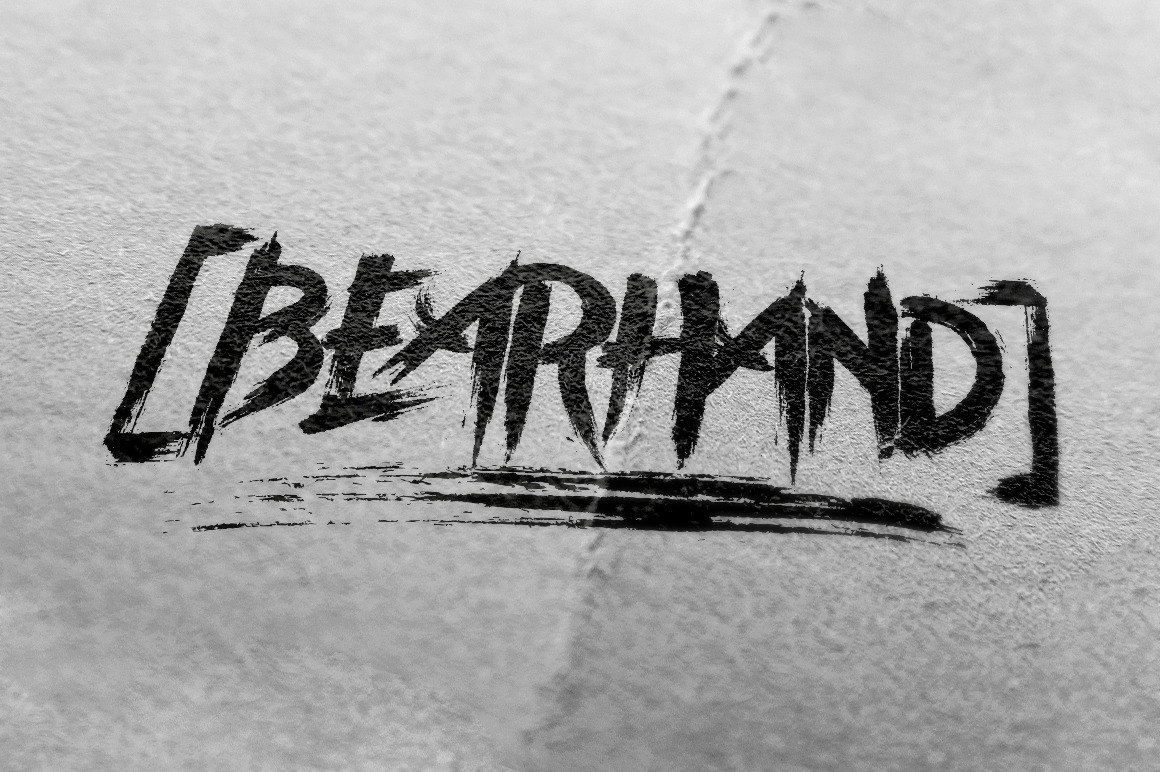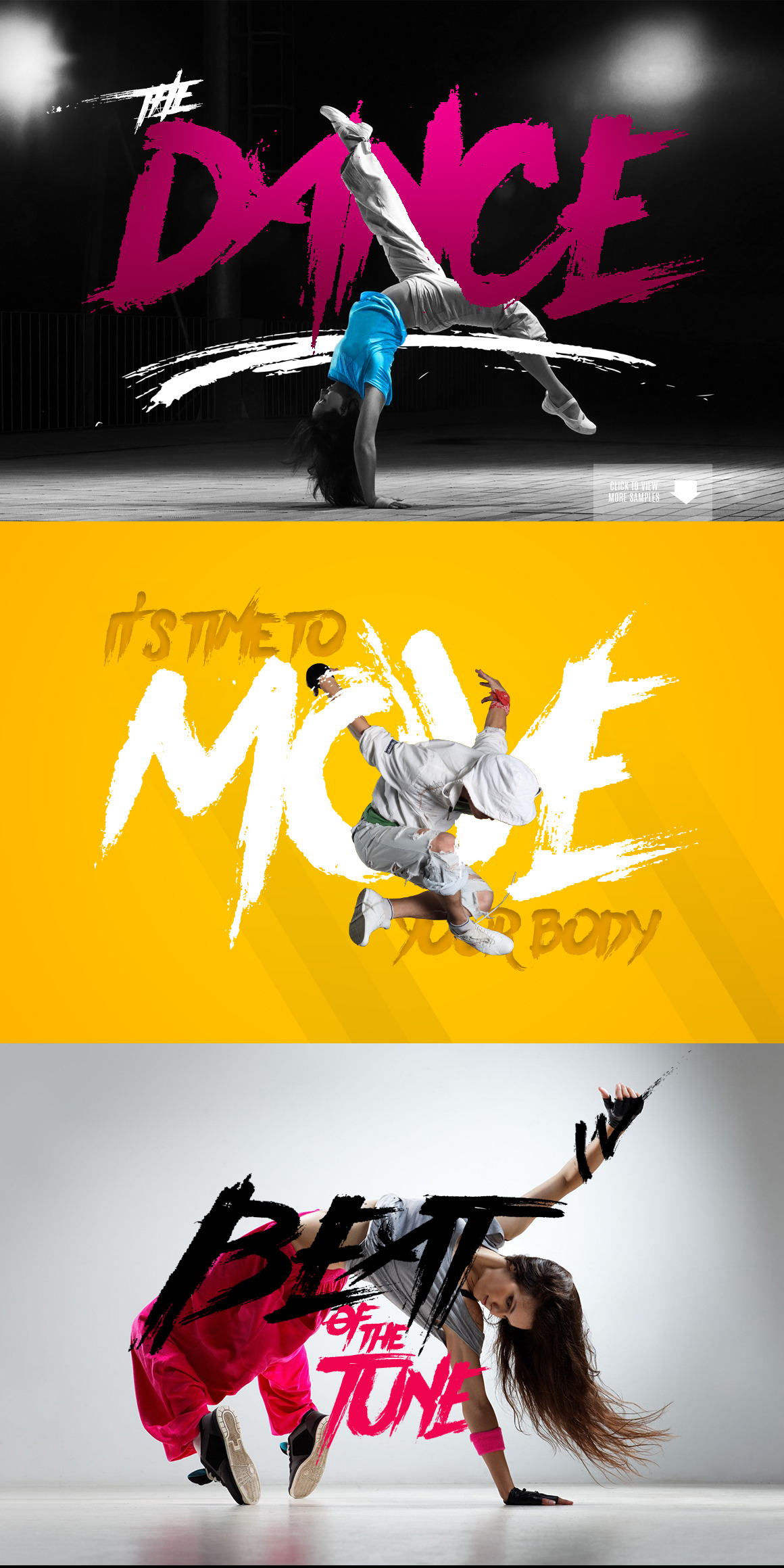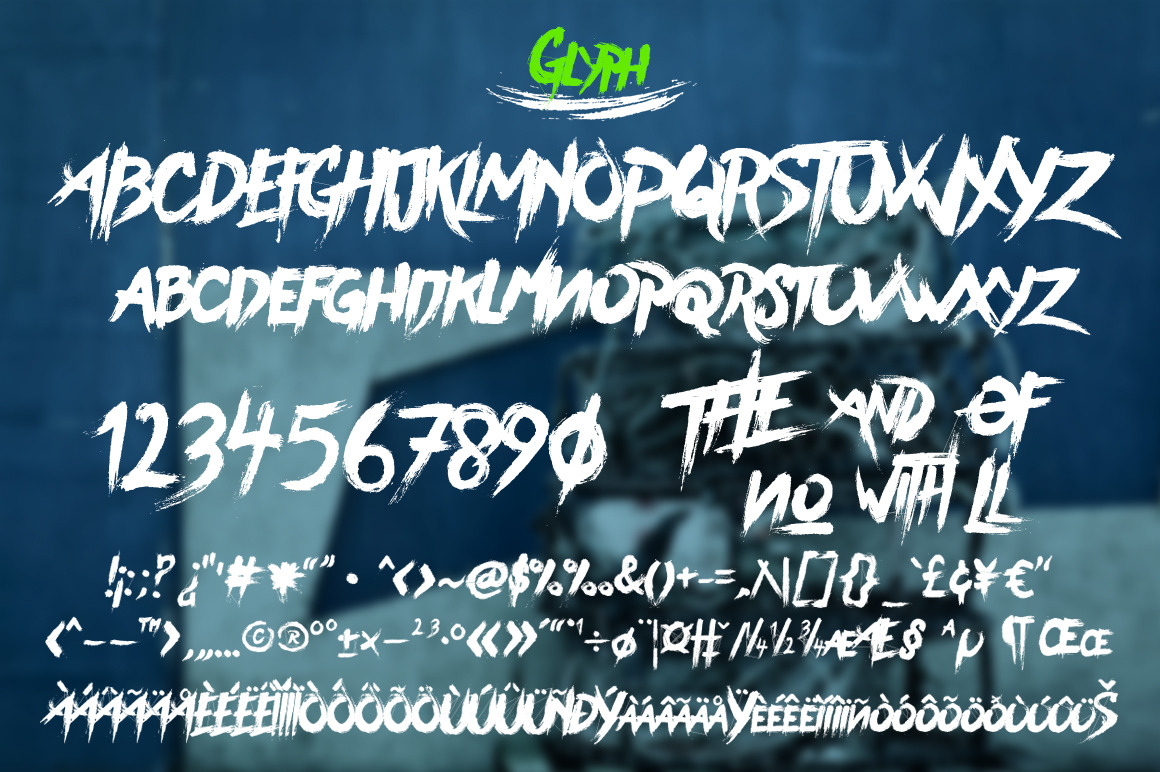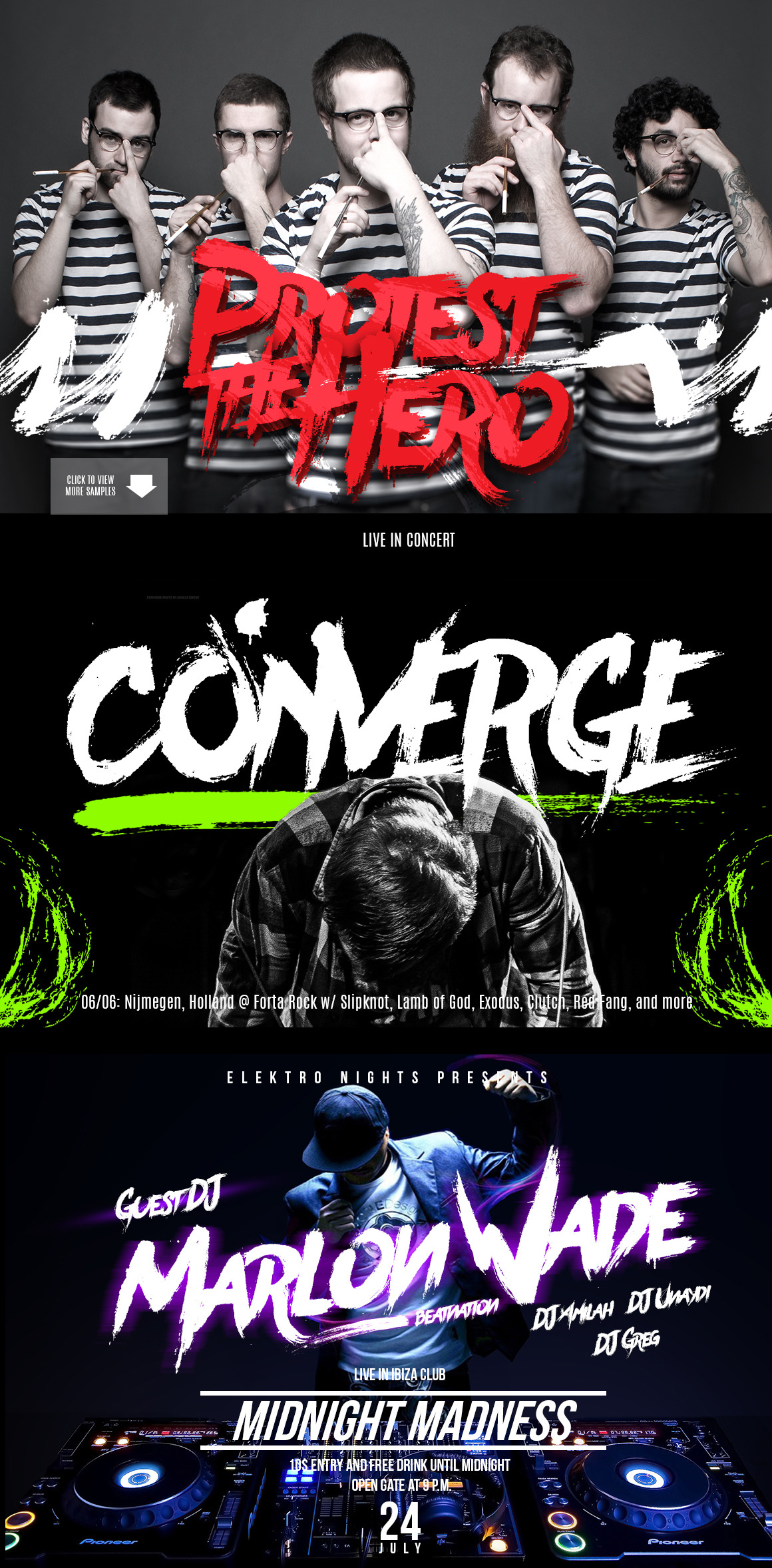
BeaHhand Typeface - BearHand is a 100% handmade typeface. Brought to give you a professional, creative, and bold looks for you designs. Complete lower-case and upper-case alphabet, punctuation, symbols and multi language are included. Also bonus graphic pack to make your design even more awesome. The typeface is great for invitations, logos, quotes, headings, signature, t-shirt, letterhead, signage, labels, news, posters, etc. The file contains of : - BearHand. otf - BearHand. ttf - BearHand - GraphicPack. ai - BearHand - Help. jpg NOTE: On some Mac OS, when you are trying to install the .otf format, it will give you notification about "system validation" warning and it says that it would cause serious problem if you insist installing it. But you don't have to worry at all. Ignore the warning and just install the .otf font. The font will do just fine and no problem will happen to the font or your computer. And the .ttf file is working good without any warning. I can guarantee that. Have a great design with it! Feel free to contact me for further request or help regarding this typeface. | BearHand Typeface + Graphic Pack | ghilkydraws